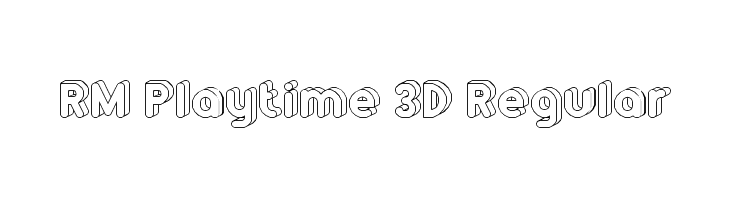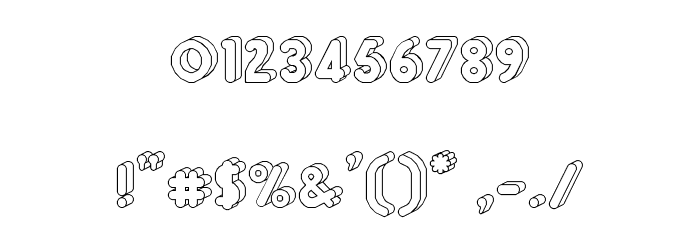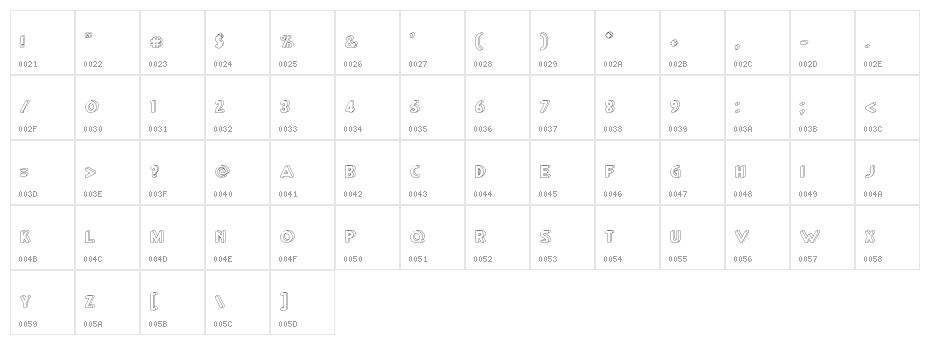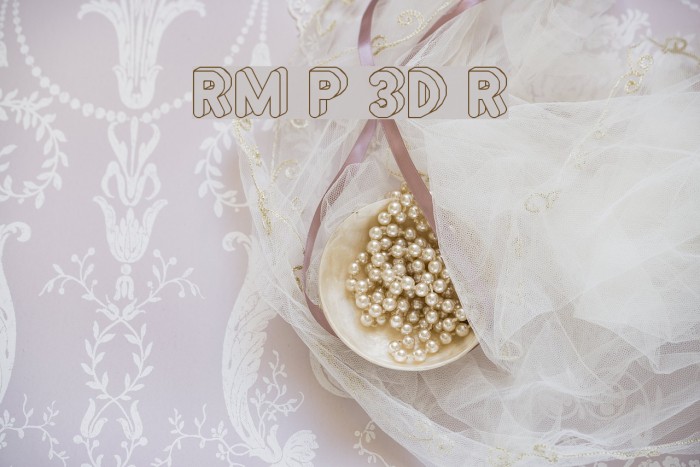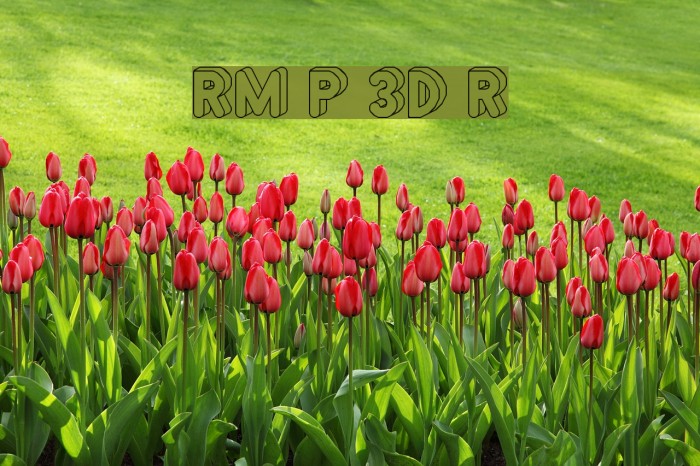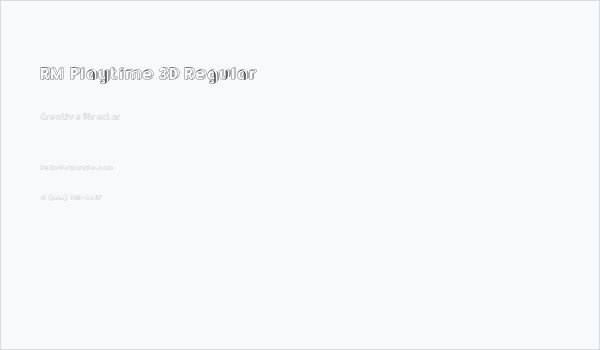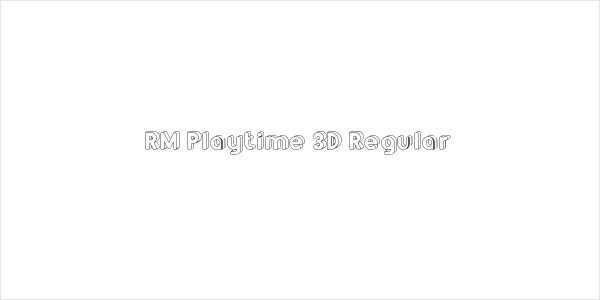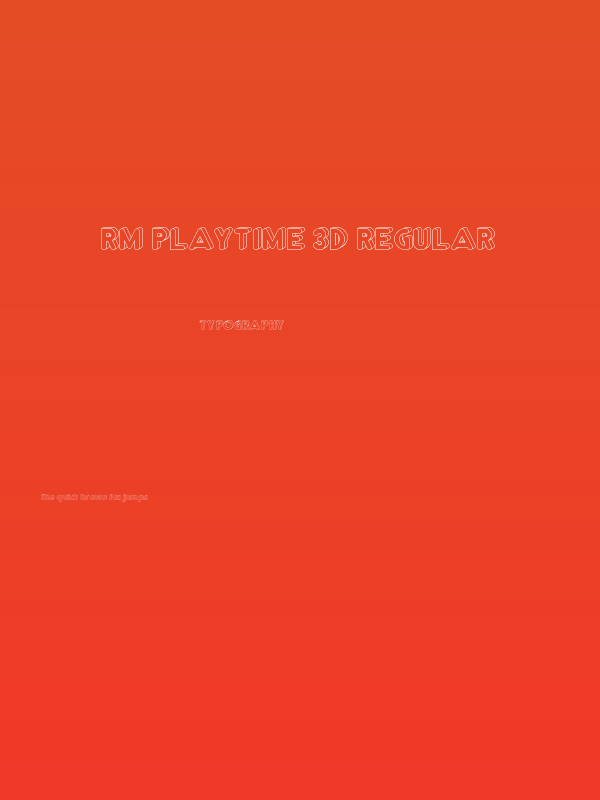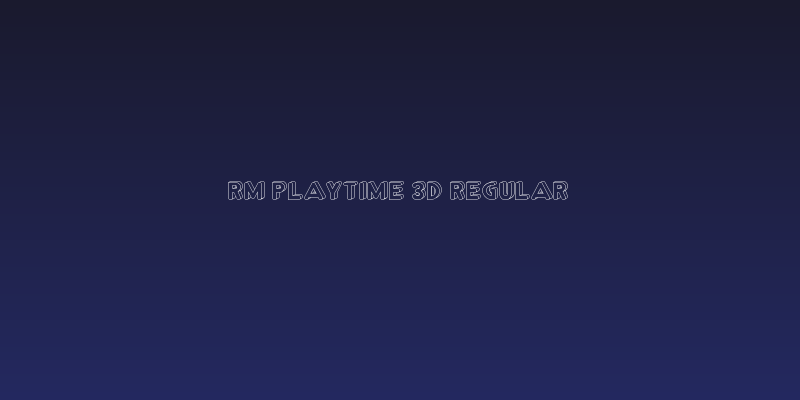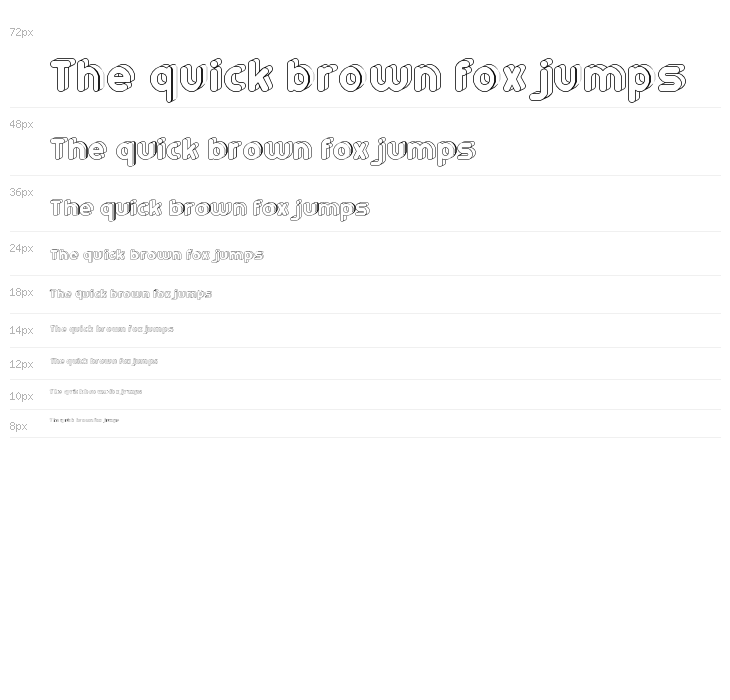
RM Playtime 3D Regular Font
RM Playtime 3D Regular Description
This playful and engaging font features a three-dimensional effect that gives each character a sense of depth and volume. The letters are bold and rounded, with a consistent outline that enhances their 3D appearance. The uppercase and lowercase characters maintain a uniform style, making them easily recognizable and cohesive. The numbers and special characters follow the same design principles, ensuring a harmonious look across all elements. This font's unique style makes it stand out, offering a fun and lively aesthetic that captures attention.
| Overall Style | Playful, Modern |
| Proposed Projects | Ideal for children's book covers, playful branding, toy packaging, and creative posters. |